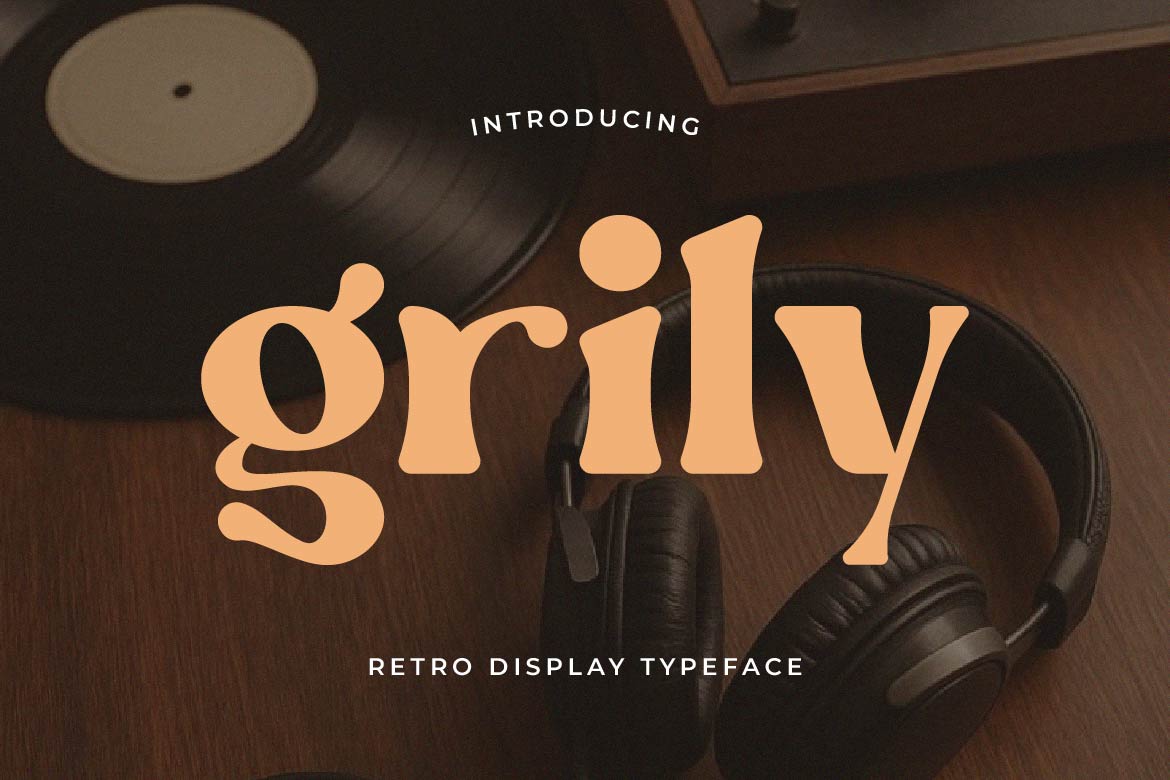
Grily – Retro Serif Display Typeface
Grily is a bold, rounded retro display typeface with chunky curves and a warm, groovy character reminiscent of vinyl record sleeves and 70s music culture. Its thick strokes and soft, playful terminals give every word an instant retro punch without feeling heavy or hard to read.
The letterforms lean into confident roundness — full-bodied bowls, generous curves, and a rhythm that feels handcrafted rather than mechanical. This makes Grily especially effective for short, punchy headlines and wordmarks where personality matters more than dense text.
Grily is a great fit for music and album branding, retro posters, vinyl and merch packaging, café and bar signage, apparel graphics, podcast covers, and any nostalgic lifestyle brand looking for a warm, groovy voice. Its vintage charm also works well for 70s-themed events, throwback social campaigns, and playful logo design.
Bold, round, and full of personality — Grily brings the warmth of vintage sound culture into modern typography.
Grily — a bold retro display typeface with a groovy, vintage soul.